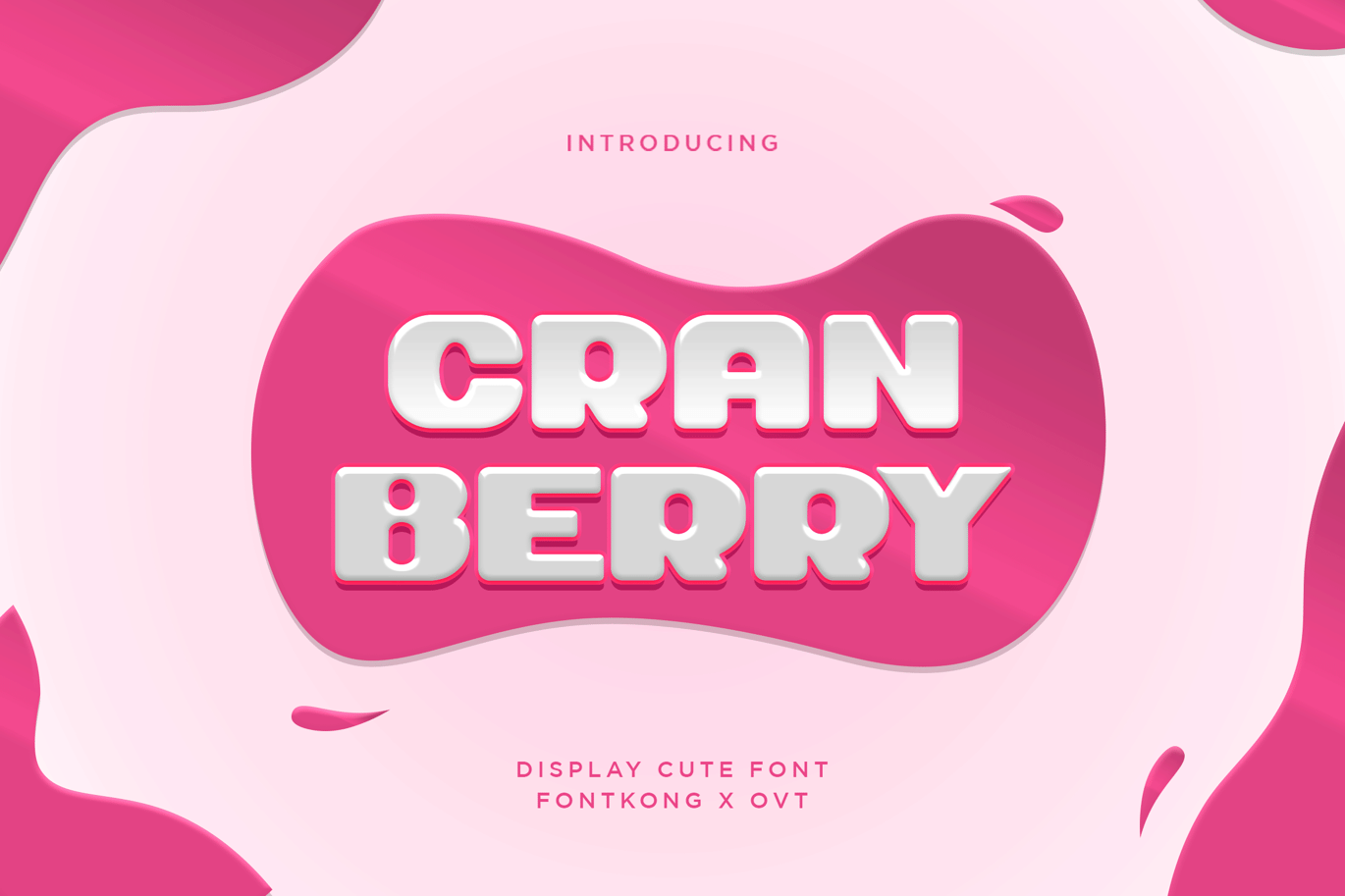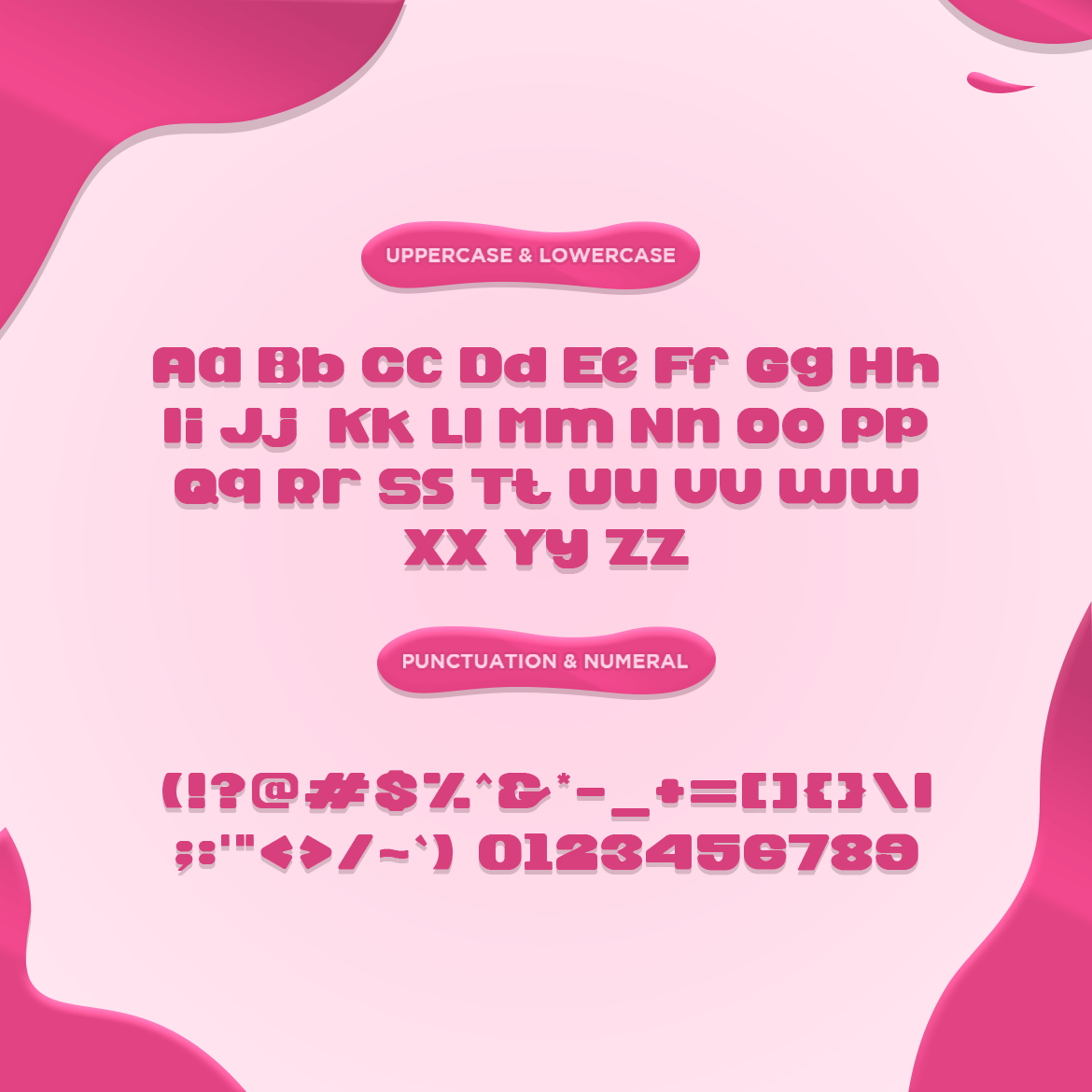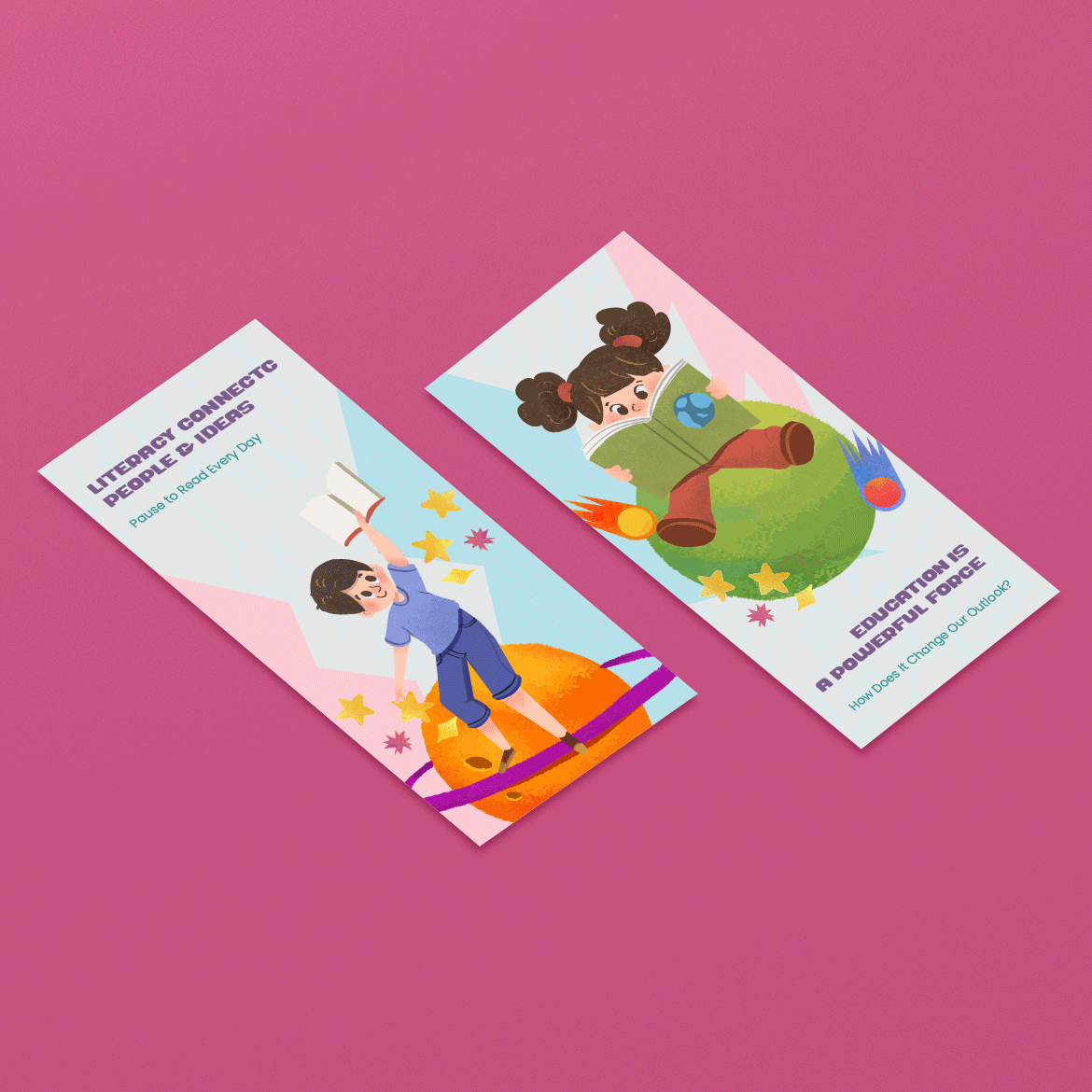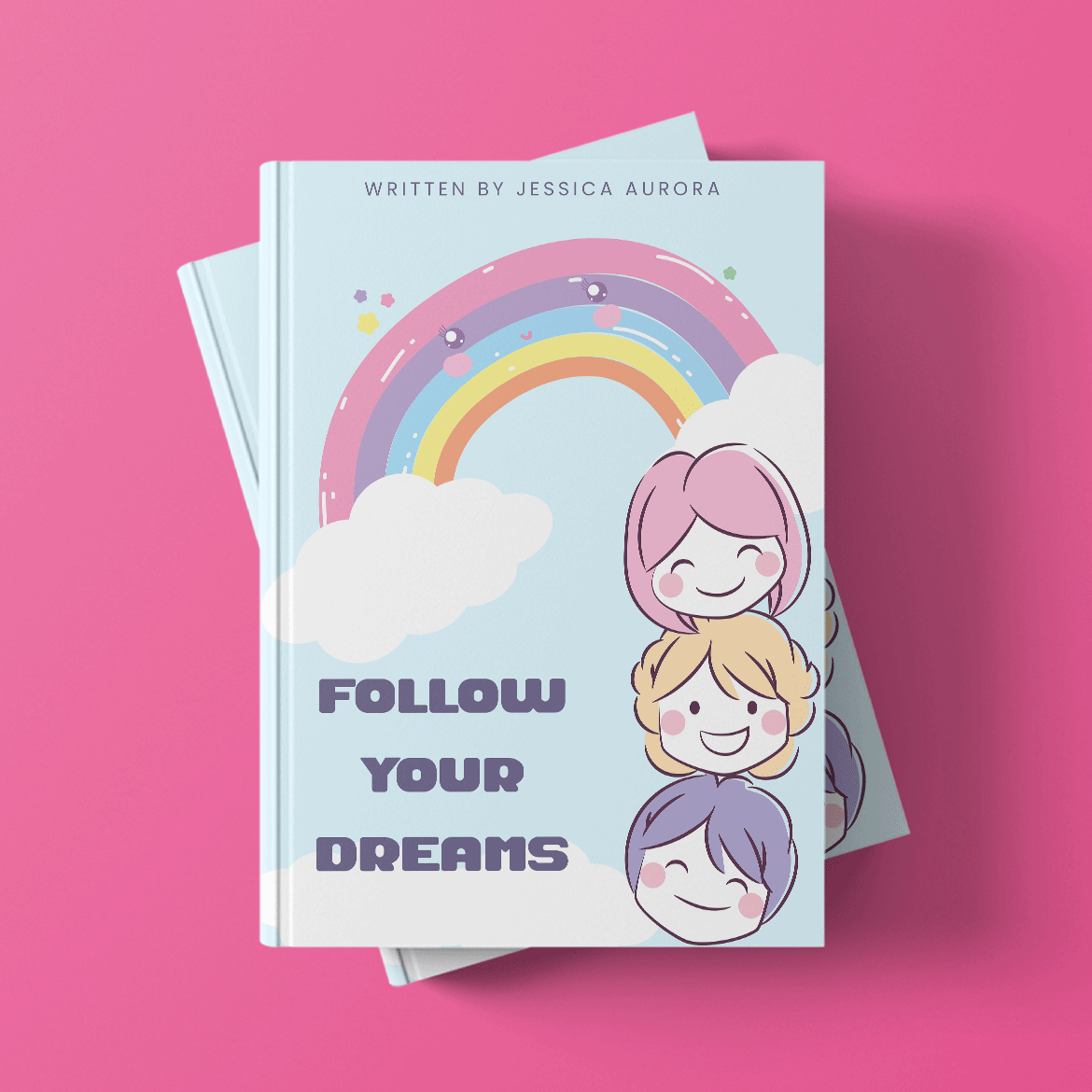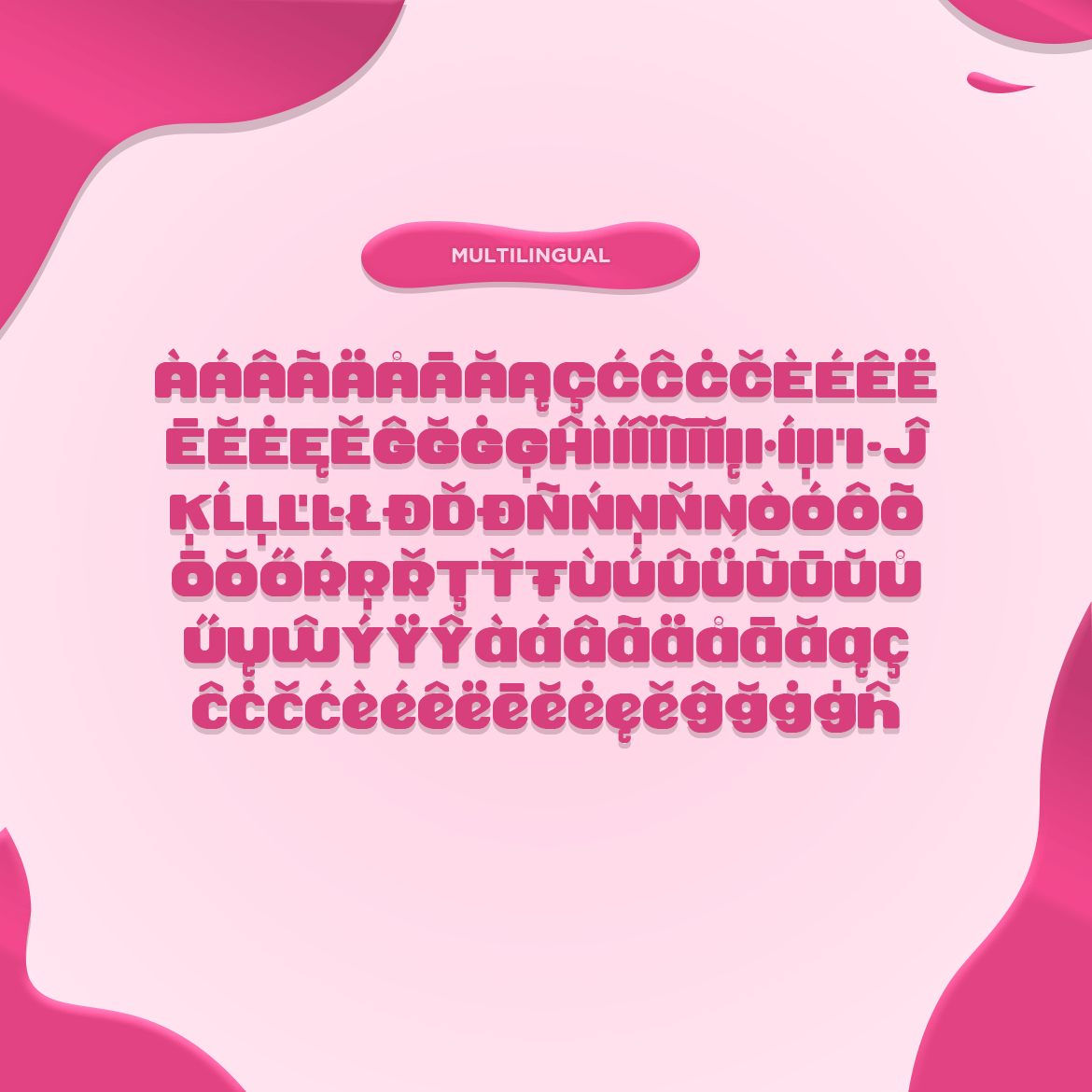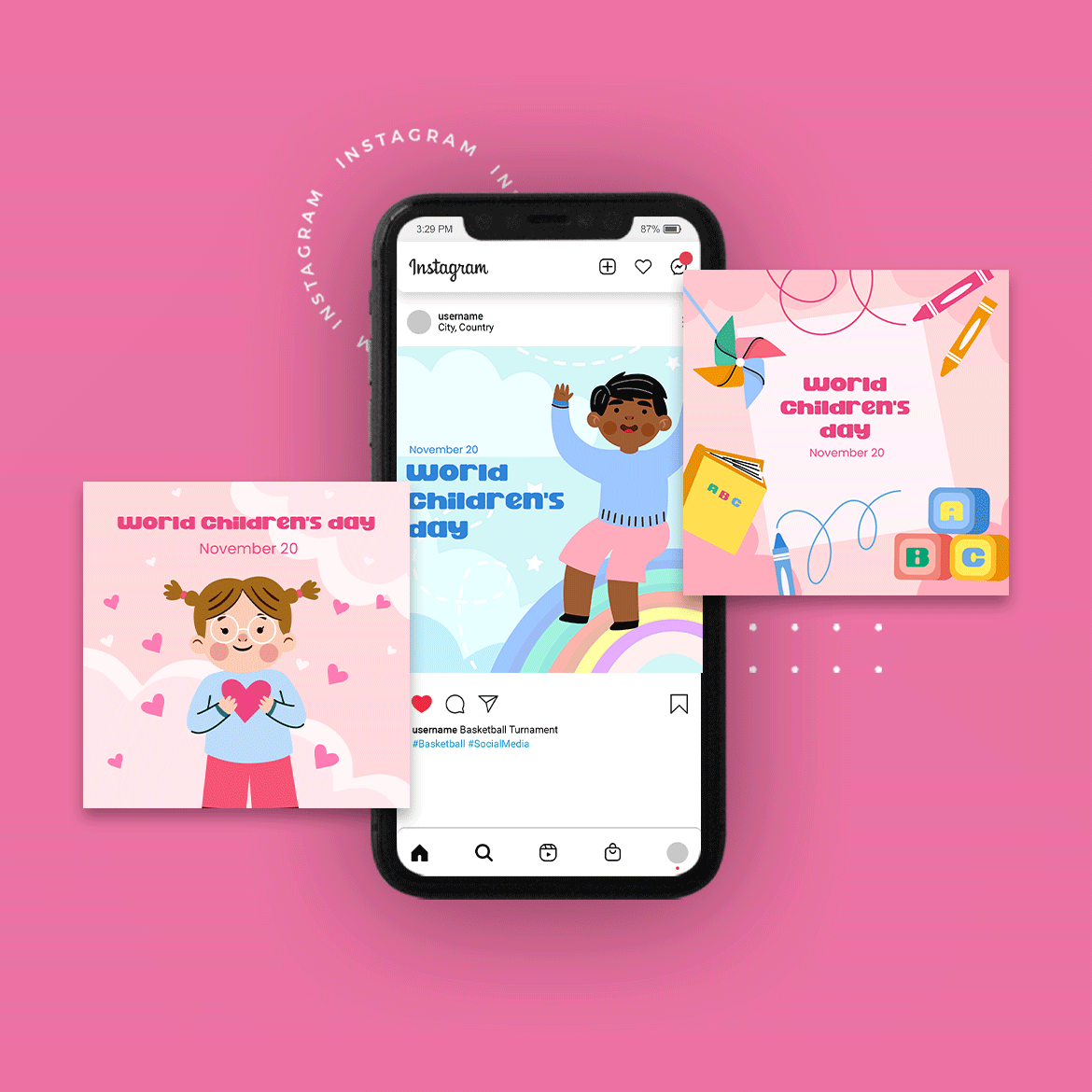
Cranberry – Display Cute Font
Introducing “Cranberry,” a display cute font that adds sweet charm and endless delight to your design projects. Perfect for graphic designers, illustrators, and creatives working on playful and whimsical designs, Cranberry offers a delightful typeface that captivates with its adorable and friendly aesthetic.
Ideal for children’s books, greeting cards, posters, packaging, and branding, Cranberry’s cute and bubbly characters provide a joyful and engaging visual appeal. Each letter is meticulously crafted to ensure readability and charm, making your designs both delightful and memorable.
The “Cranberry” font includes a complete set of uppercase and lowercase letters, numbers, punctuation marks, and special characters. This versatile set ensures seamless integration into various design projects, from enchanting storybooks to charming packaging.
Bring sweetness and joy to your designs with Cranberry, the display cute font that turns every project into a delightful experience.